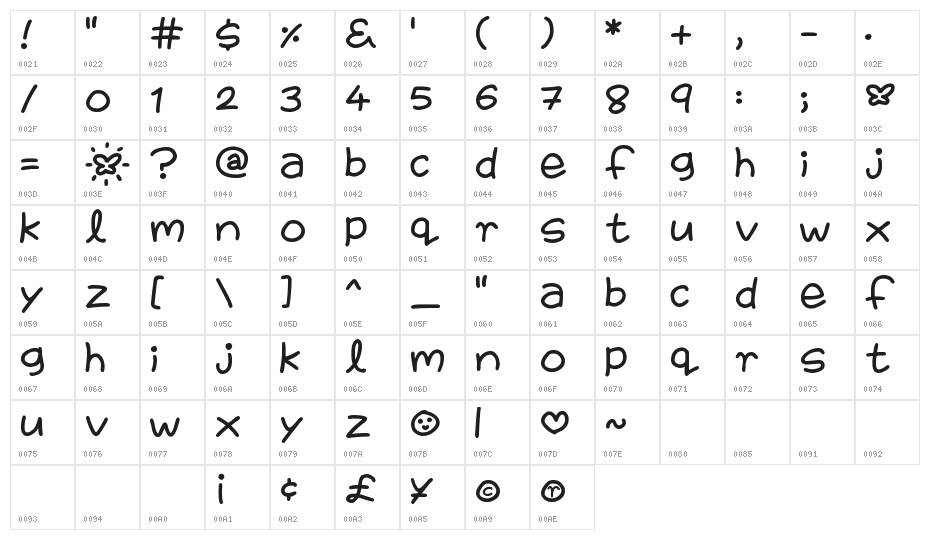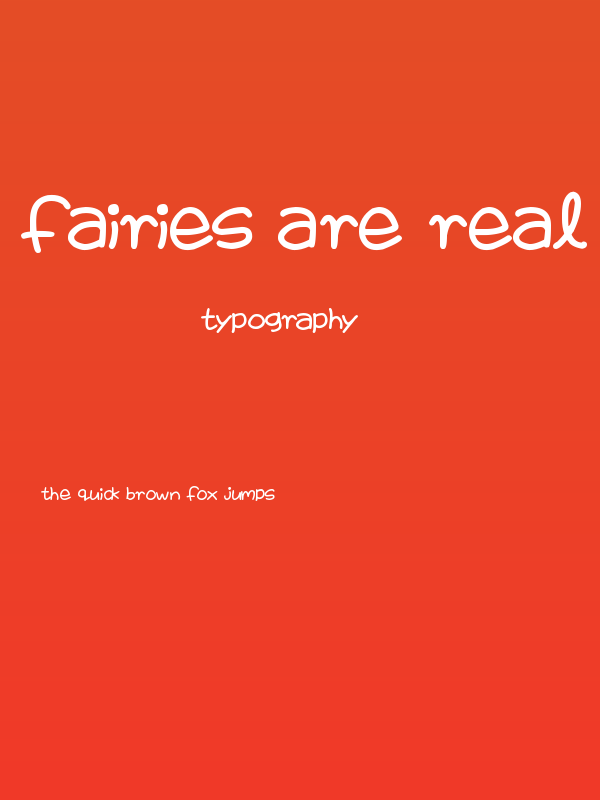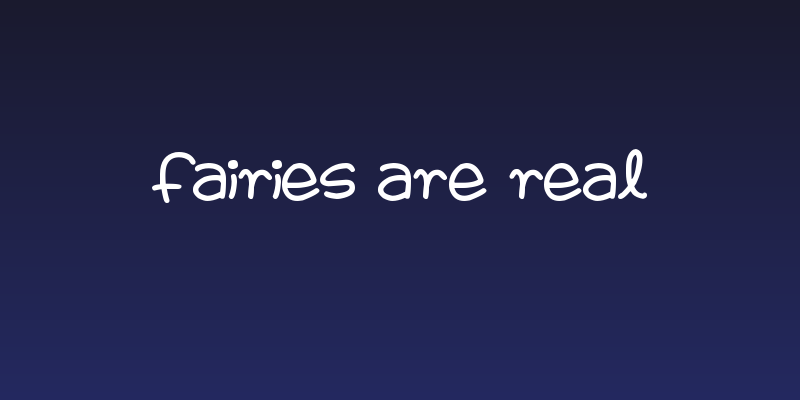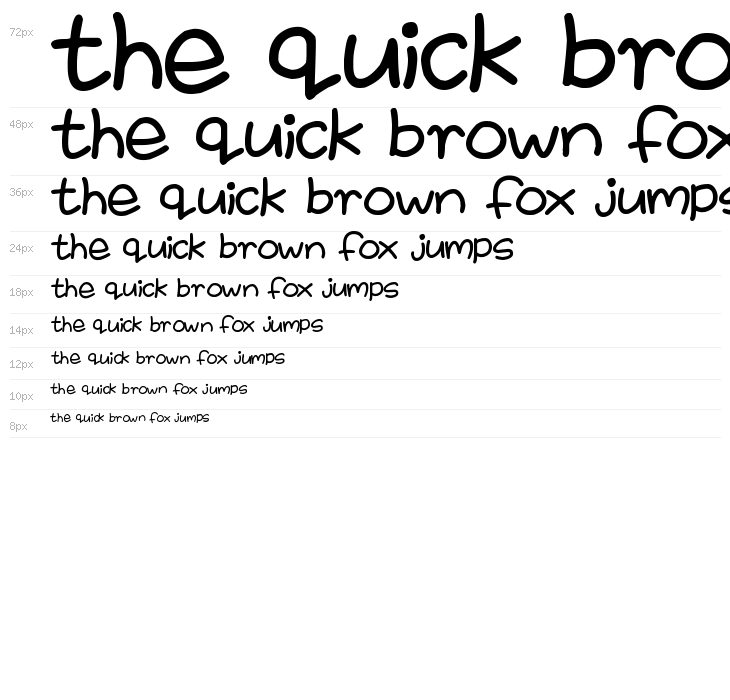
Fairies Are Real Font
Fairies Are Real Description
This playful and whimsical font features a handwritten style with rounded, smooth edges that evoke a sense of fun and creativity. The characters are slightly irregular, giving them a natural, organic feel. The lowercase letters are particularly distinctive, with a casual and friendly appearance. The numbers and special characters maintain the same playful aesthetic, making this font versatile for various creative projects. Its informal style makes it ideal for designs that aim to be approachable and engaging.
| Proposed Projects | Ideal for children's books, greeting cards, playful branding, and creative social media graphics. |